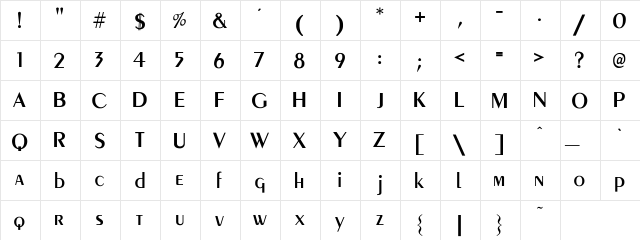
Avalon Medium Regular
Design Context for Avalon Medium Typeface
Avalon Medium offers clean, dependable letterforms without strong stylistic allegiance, making it a practical choice for designers who need flexibility.